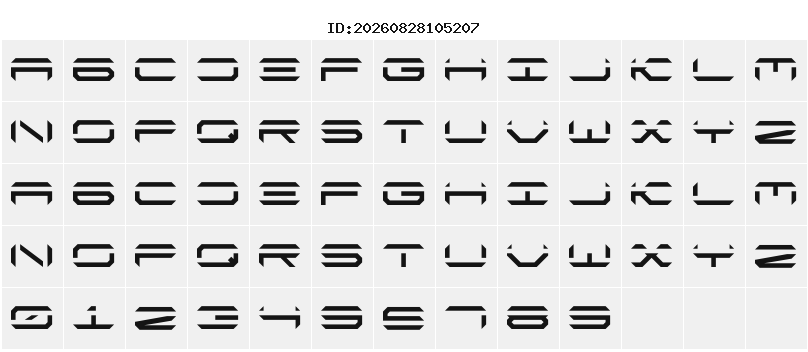
• Font Name: Torwelten
• Font Style: Mono
• Full Font Name: TorweltenMono
About Torwelten.ttf
Torwelten.ttf is a modern, elegant sans-serif font designed for ultimate readability and visual harmony. Perfect for branding, headlines, web design, and print materials.